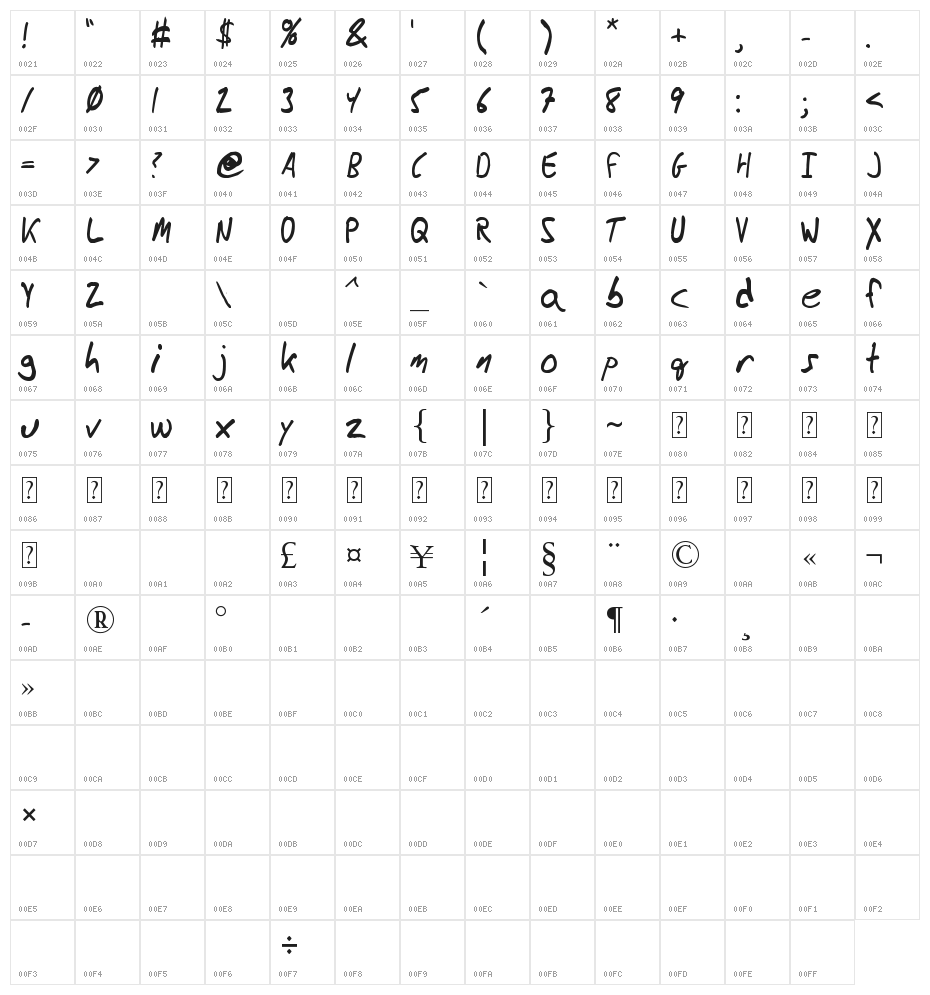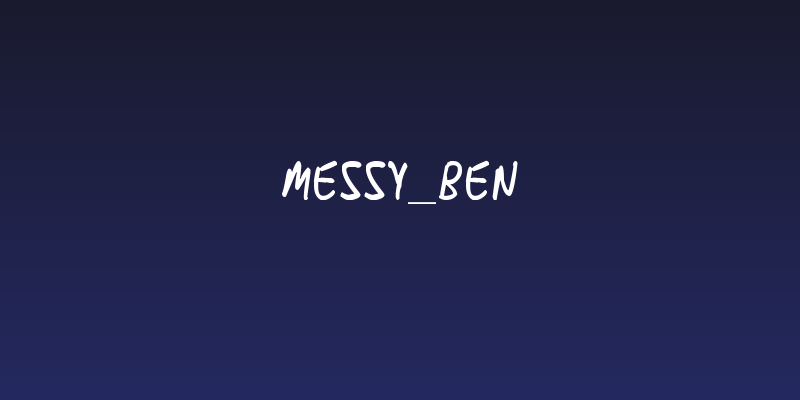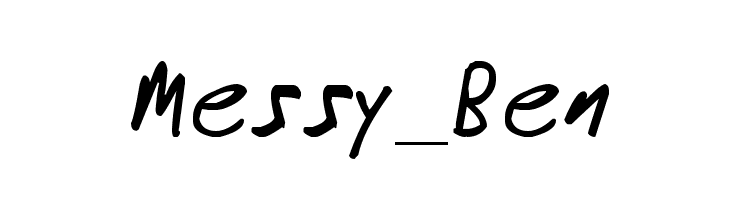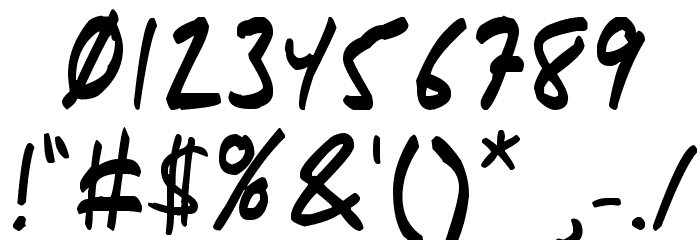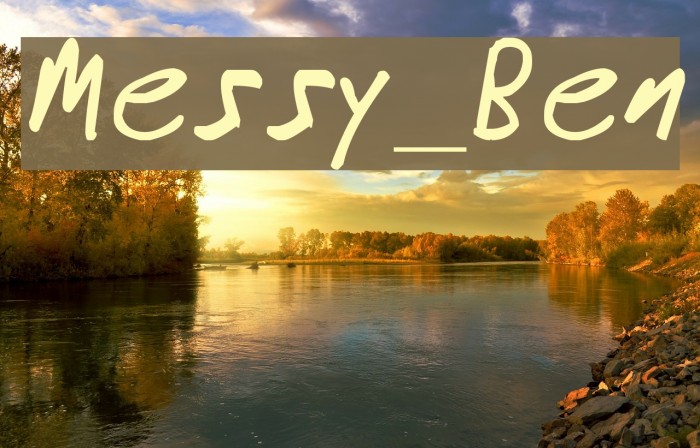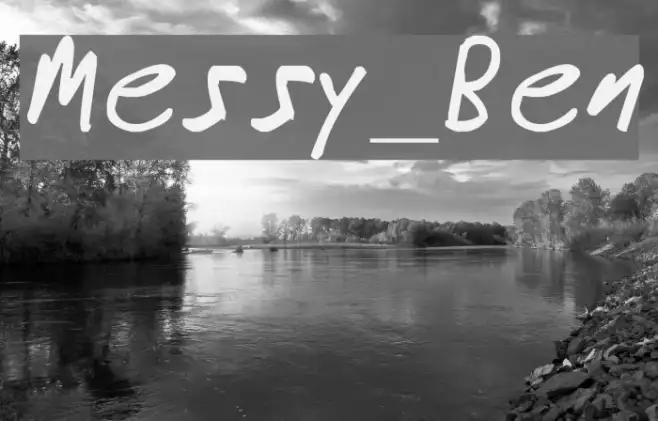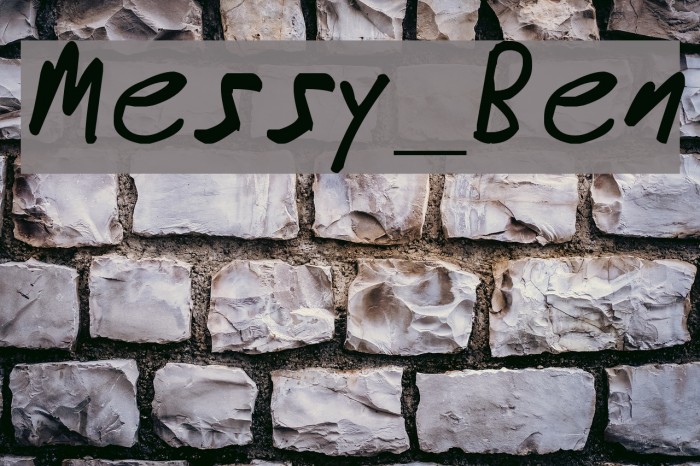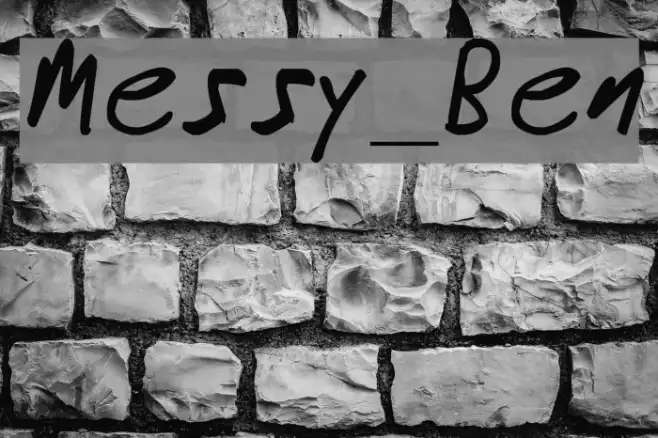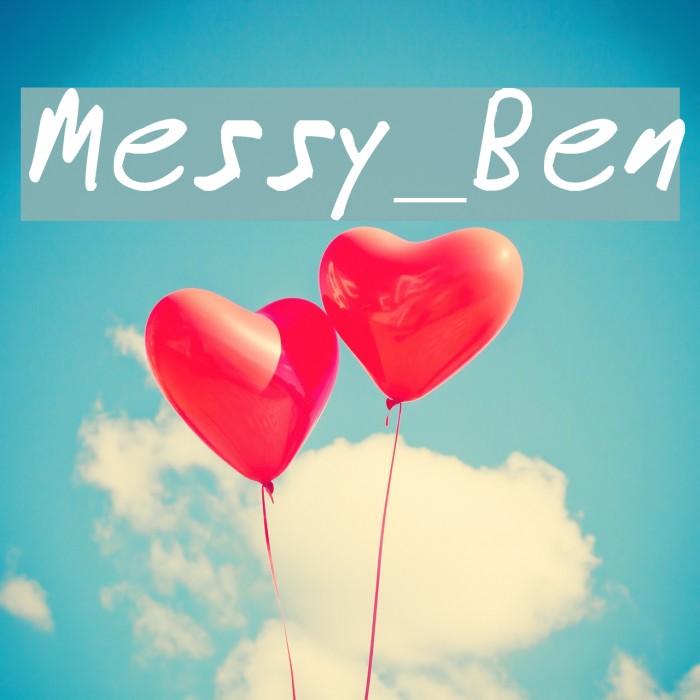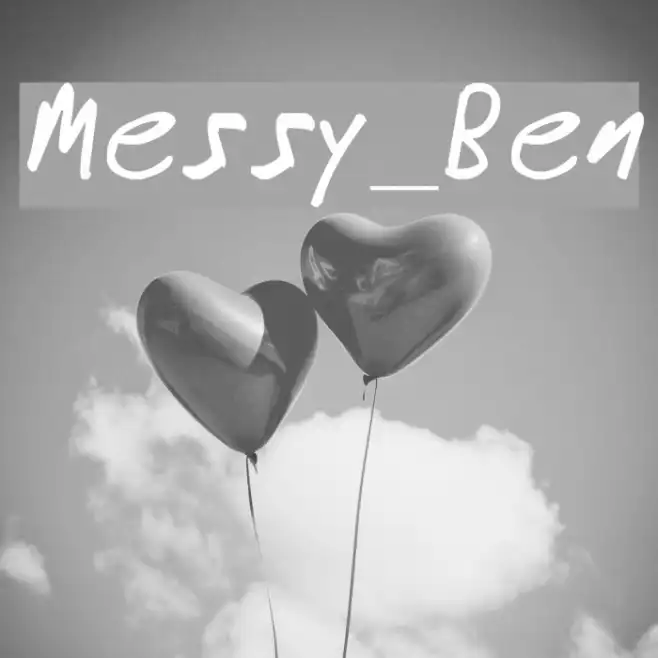
Messy_Ben Font
Messy_Ben Description
This font features a playful and informal handwritten style, characterized by its uneven and slightly chaotic letterforms. The strokes are bold and expressive, giving it a lively and dynamic appearance. The uppercase and lowercase letters maintain a consistent style, with a slight slant that adds to the casual feel. The numbers and special characters follow the same energetic design, making the font versatile for various creative applications. Its unique personality makes it stand out, perfect for projects that require a touch of whimsy and individuality.
| Overall Style | Playful, Informal |
| Use Case | Headlines, Logos, Casual Text |
| Proposed Projects | Ideal for greeting cards, children's book covers, playful branding, and social media graphics. |